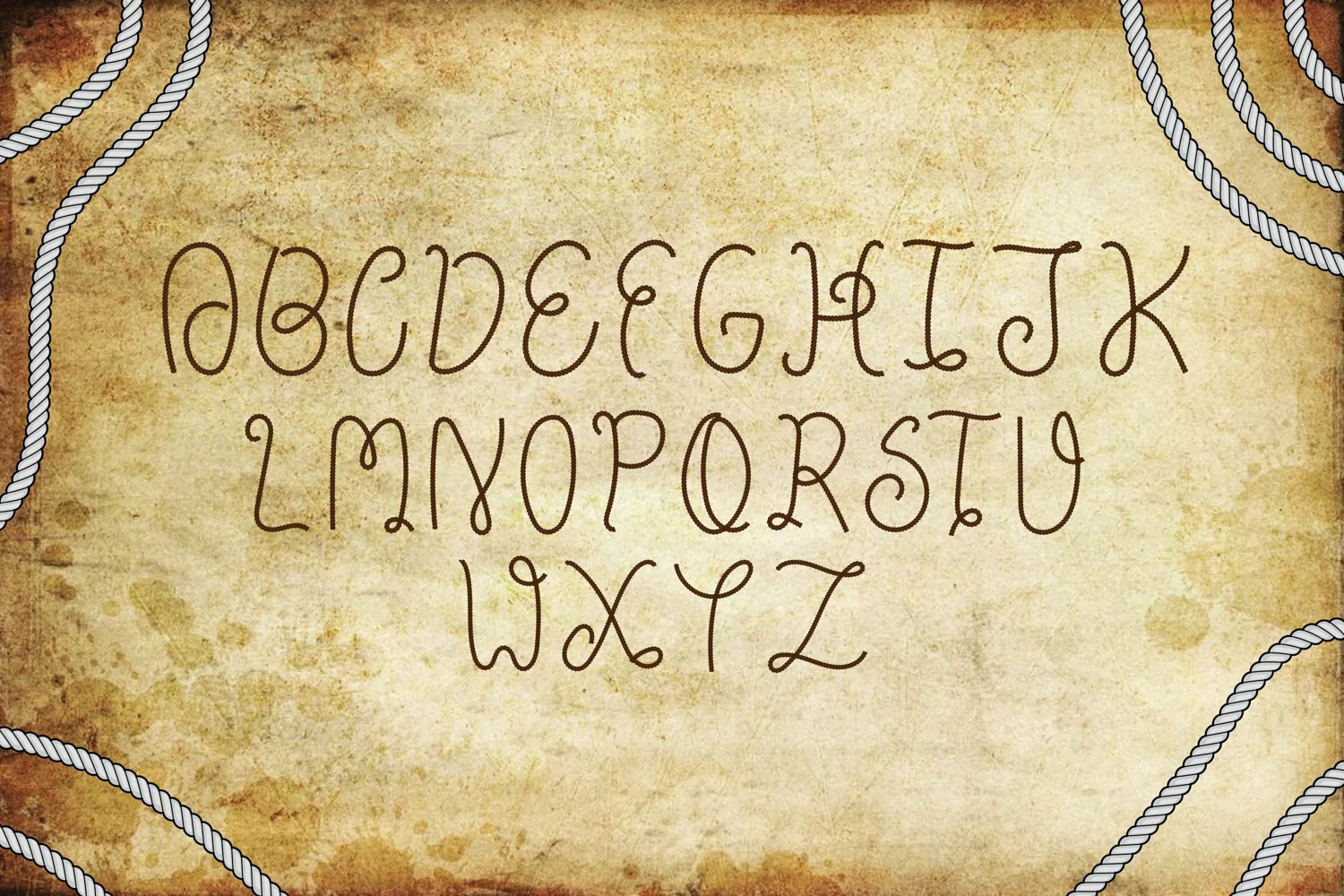
Serial Killer
One of the finest fun font in rope style which is best for any kind of event and celebration. You can see in above previews that these are pattern based and perfect for halloween text styles.
1- Upper case with 2x Style